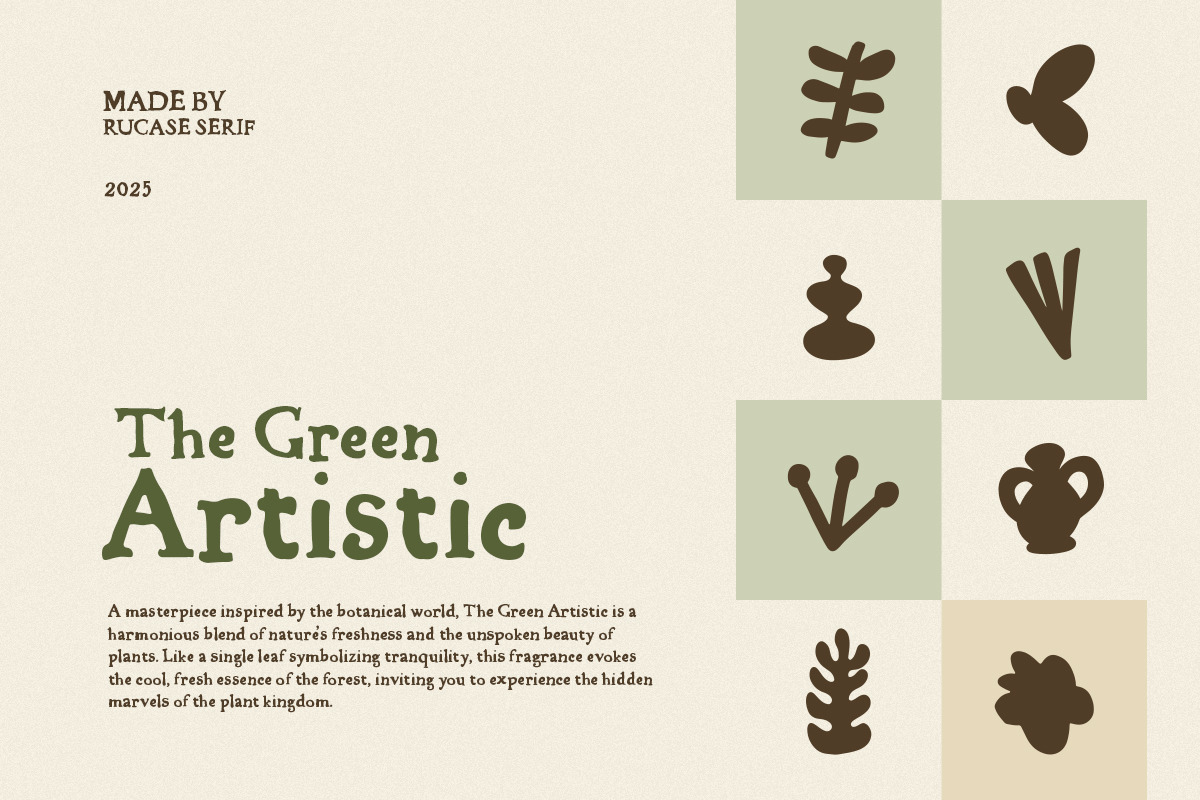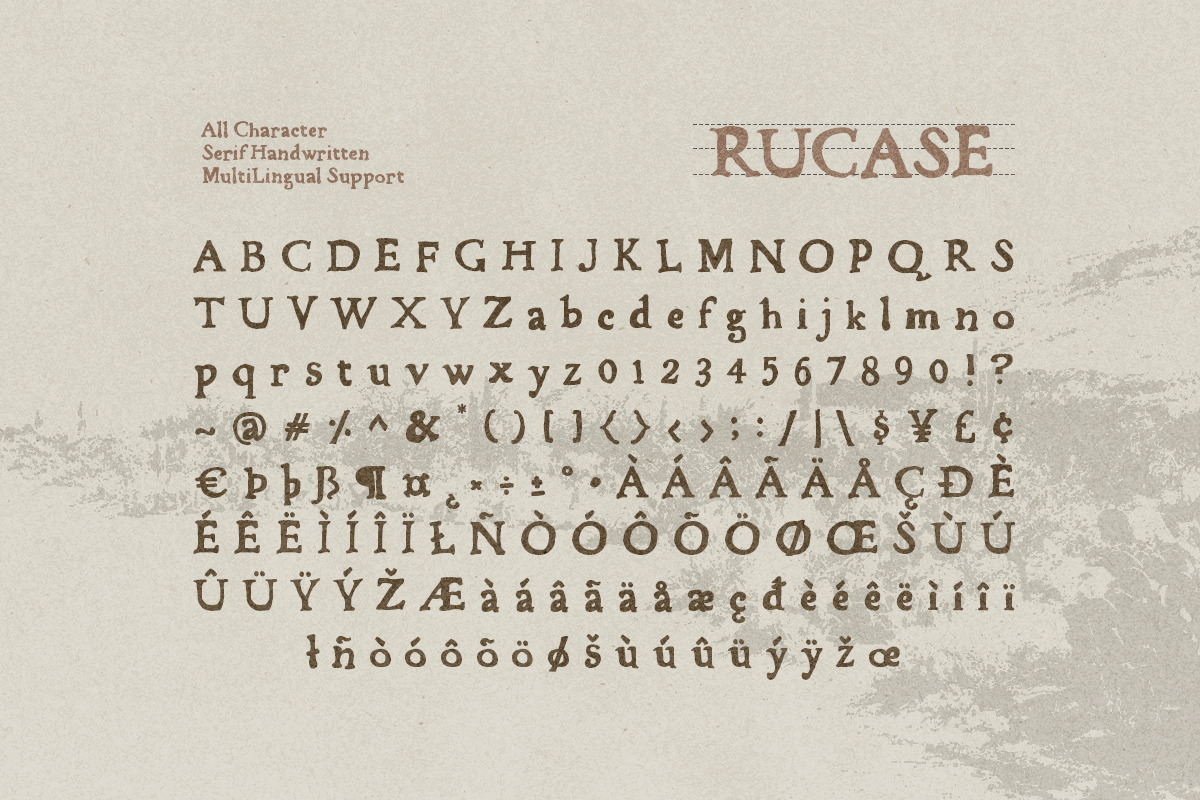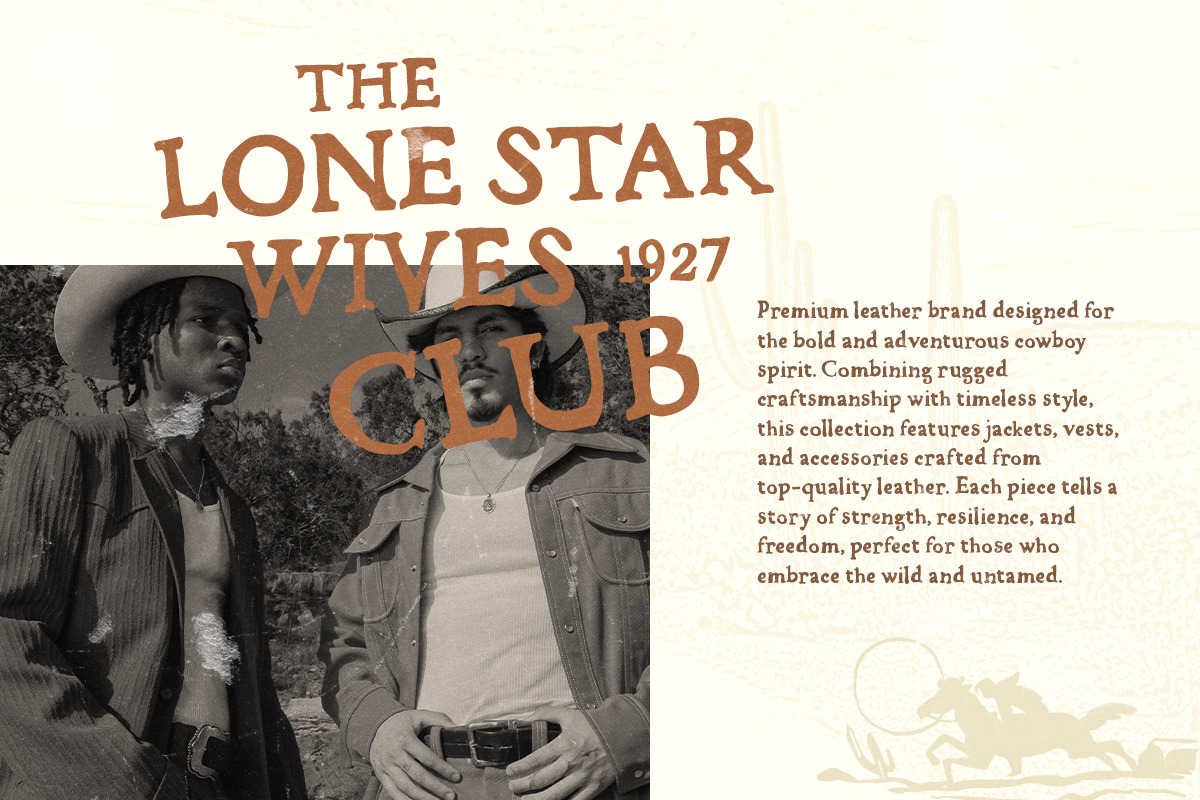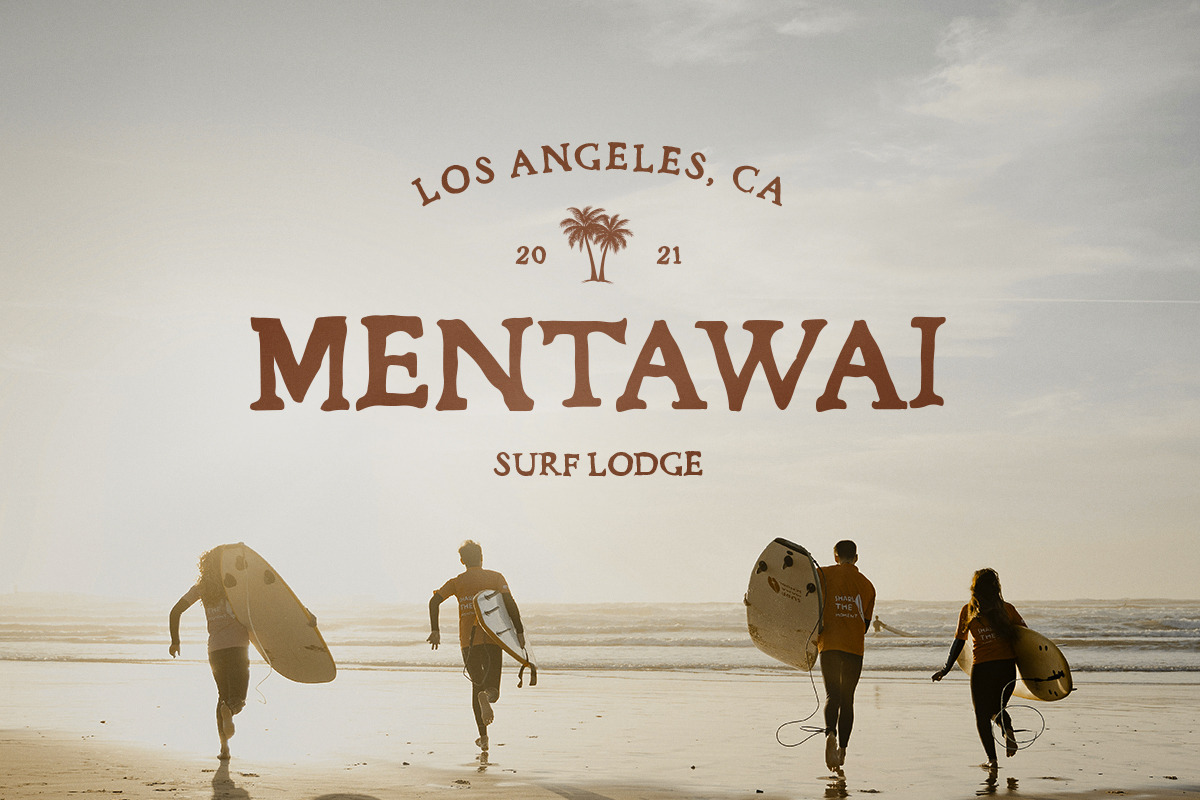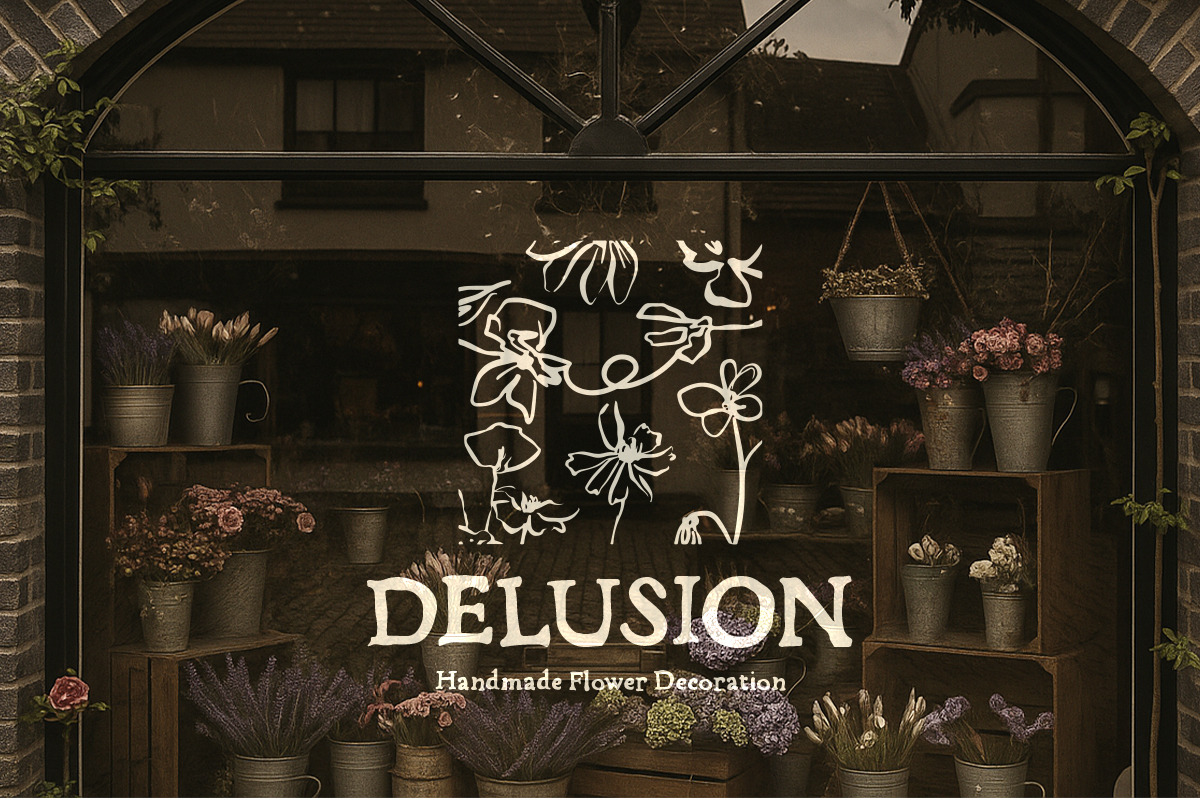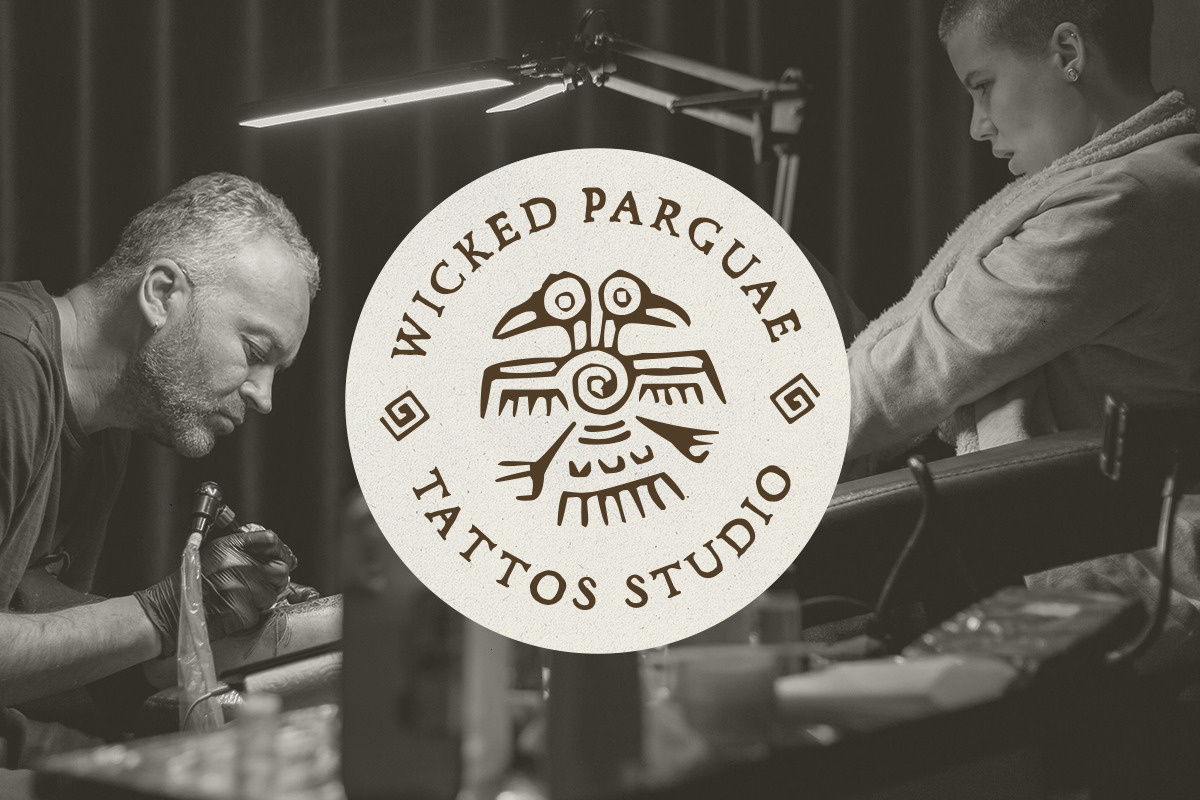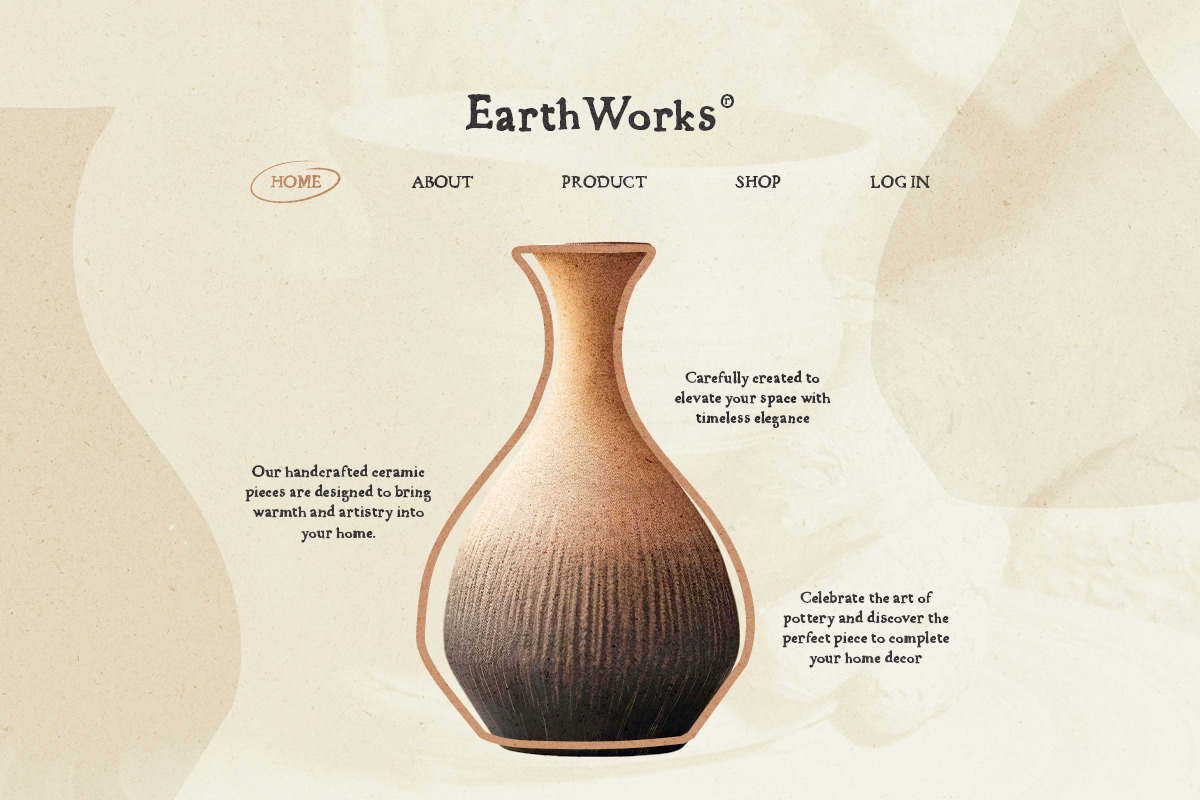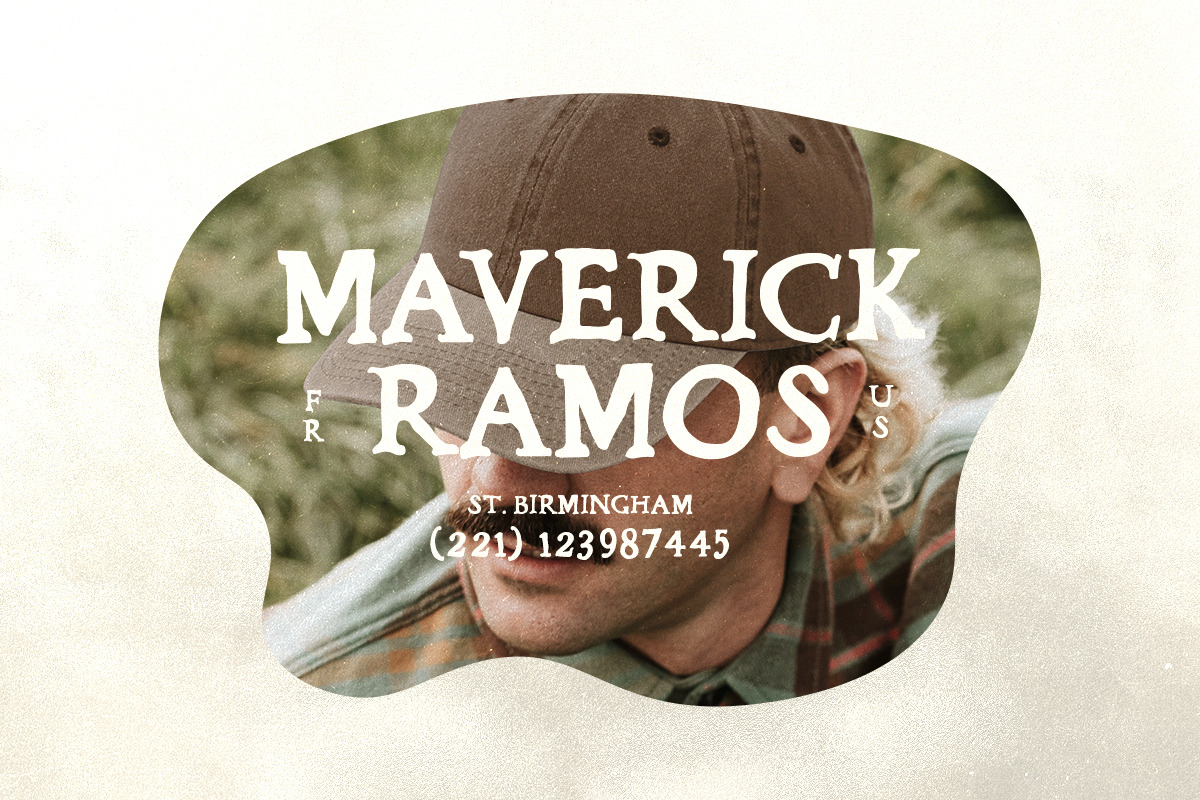
Rucase – Crafted with Character
Rucase is a refined handwritten serif font, drawing inspiration from human touch and artisanal craftsmanship. With its balanced strokes and graceful curves, it evokes a nostalgic charm, perfect for brands with a retro, vintage, or timeless aesthetic. Ideal for logos, packaging, posters, and editorial designs, Rucase combines classic warmth with a handcrafted, authentic feel.